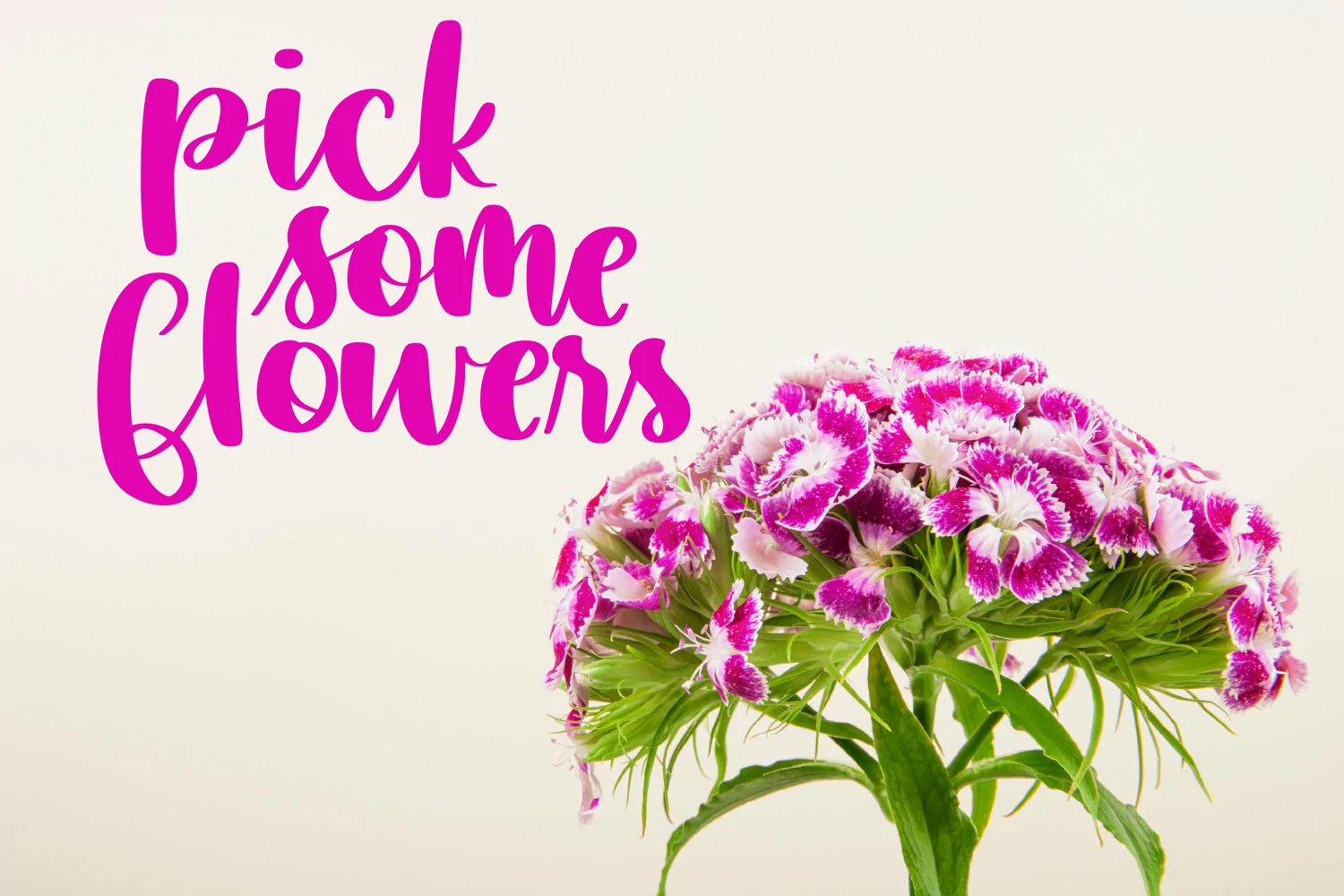
springs - A Simple Hand Lettered Script
Includes alternatives for each lower case letter to end a word without a stem - then extra r & s for the beginning of words.